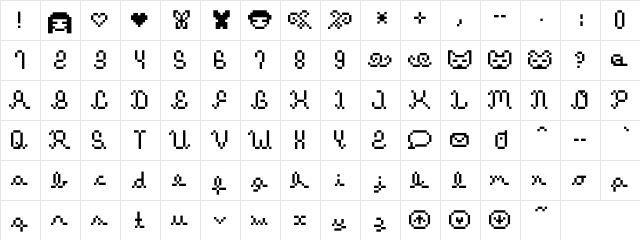
cmdreamit Regular Font Preview
cmdreamit Regular
cmdreamit Regular Font Details
Design Context for cmdreamit Typeface
cmdreamit is a composed and adaptable typeface that performs quietly and consistently across a wide range of design contexts.